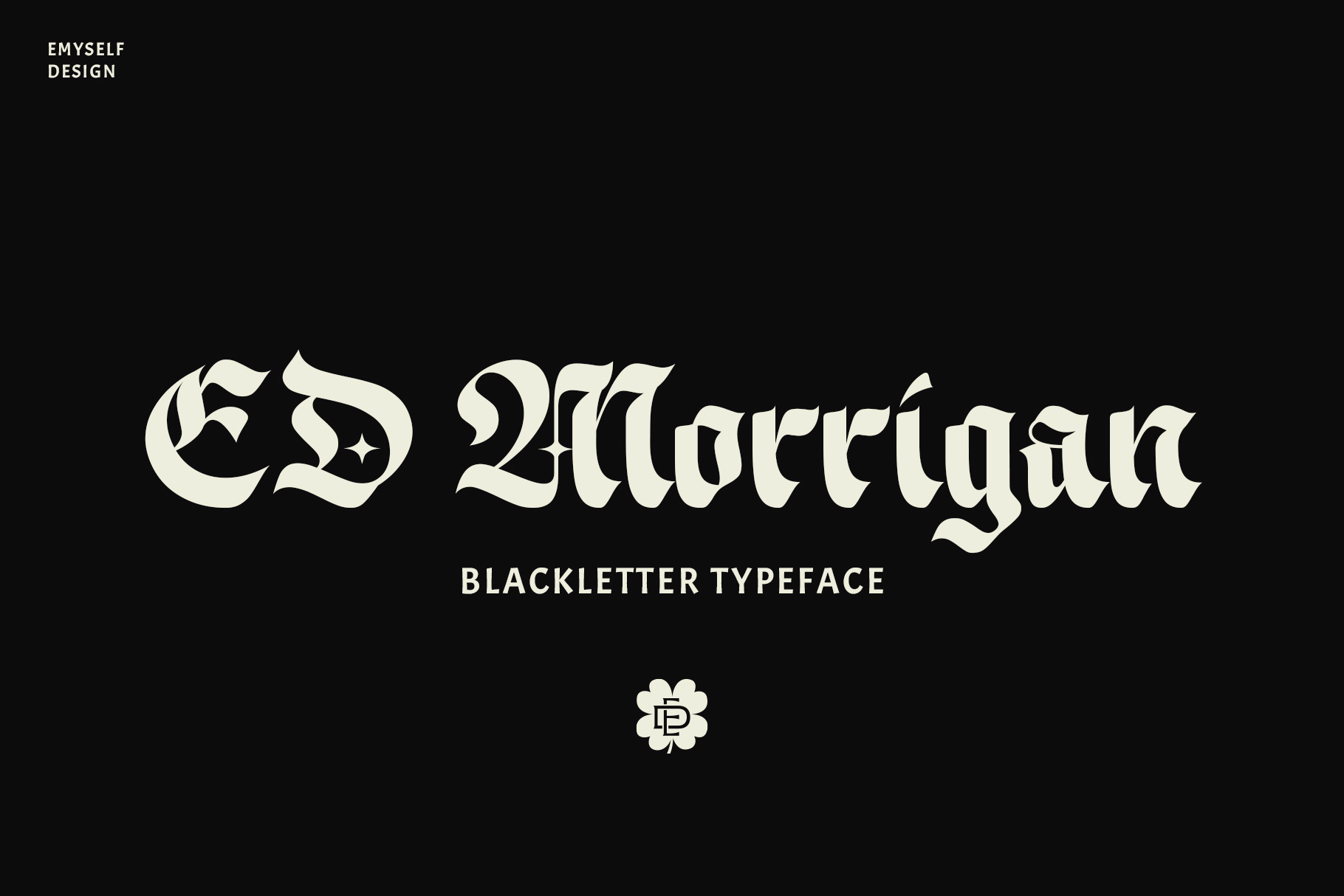
ED Morrigan Typeface
ED Morrigan is a classic blackletter font that looks vintage and elegant. Designed with sharp edges and looks stylish, this font is also equipped with ligature features and multilingual support.